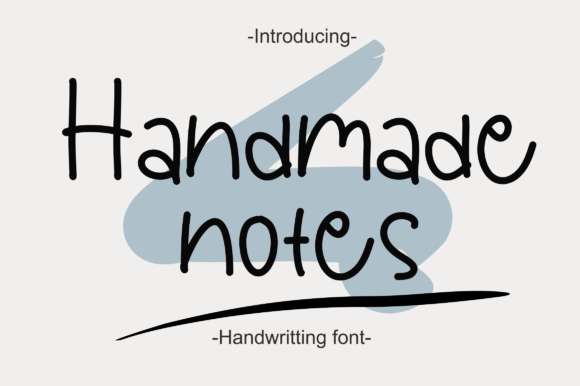
Introducing Handmade Notes Font: The Perfect Handwritten Font for Your Creative Projects
Are you a designer, crafter, or DIY enthusiast looking for a unique and personal touch to add to your notes, reminders, and creative projects? Look no further than Handmade Notes Font, an amazing handwritten font that imitates quick handwriting and is perfect for any project that requires a personal and human touch.
What is Handmade Notes Font?
Handmade Notes Font is a carefully crafted handwritten font that mimics the look and feel of quick, handwritten notes. With its irregular strokes, varying letter sizes, and authentic handwriting style, this font is sure to add a touch of personality and whimsy to any project. Whether you’re creating notes, reminders, to-do lists, or craft projects, Handmade Notes Font is the perfect choice.
Key Features of Handmade Notes Font
• Authentic Handwritten Style: Handmade Notes Font boasts an authentic handwritten style that is sure to capture the essence of quick, handwritten notes.
• Irregular Strokes: The font features irregular strokes and varying letter sizes, giving it a natural and human touch.
• Perfect for Notes and Reminders: Handmade Notes Font is specifically designed for notes, reminders, and to-do lists, making it a great choice for planners, journals, and organizers.
• Easy to Read: Despite its handwritten style, Handmade Notes Font is easy to read, making it perfect for both digital and print projects.
• Versatile: This font can be used for a wide range of projects, from crafting and DIY projects to digital and print designs.
Why Choose Handmade Notes Font?
There are many reasons why designers, crafters, and DIY enthusiasts choose Handmade Notes Font for their projects. Here are just a few:
• Adds a Personal Touch: Handmade Notes Font adds a personal and human touch to any project, making it perfect for those who want to stand out from the crowd.
• Unique and Whimsical: This font is unique and whimsical, making it perfect for crafters and DIY enthusiasts who want to add a touch of personality to their projects.
• Easy to Use: Handmade Notes Font is easy to use and can be easily integrated into a wide range of design software and applications.
• High-Quality: This font is high-quality and carefully crafted to ensure that it looks great in any project.
How to Use Handmade Notes Font
Using Handmade Notes Font is easy! Here are just a few tips to get you started:
• Pair with Other Fonts: Pair Handmade Notes Font with other fonts to create a unique and visually appealing design.
• Use for Headings and Titles: Use Handmade Notes Font for headings and titles to add a touch of personality and whimsy to your project.
• Add to Digital and Print Projects: Add Handmade Notes Font to digital and print projects, such as planners, journals, and organizers.
• Experiment with Colors and Textures: Experiment with different colors and textures to add depth and interest to your project.
Handmade Notes Font is an amazing handwritten font that is perfect for designers, crafters, and DIY enthusiasts who want to add a personal and human touch to their projects. With its authentic handwritten style, irregular strokes, and easy-to-read design, this font is sure to become a favorite in your design arsenal. So why wait? Download Handmade Notes Font today and start creating unique and visually appealing projects that stand out from the crowd!